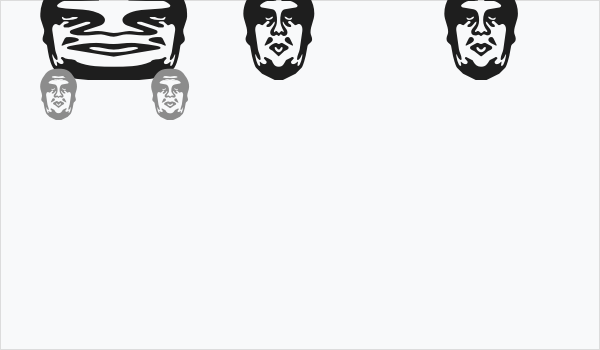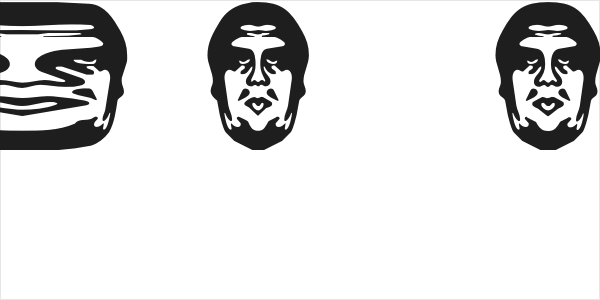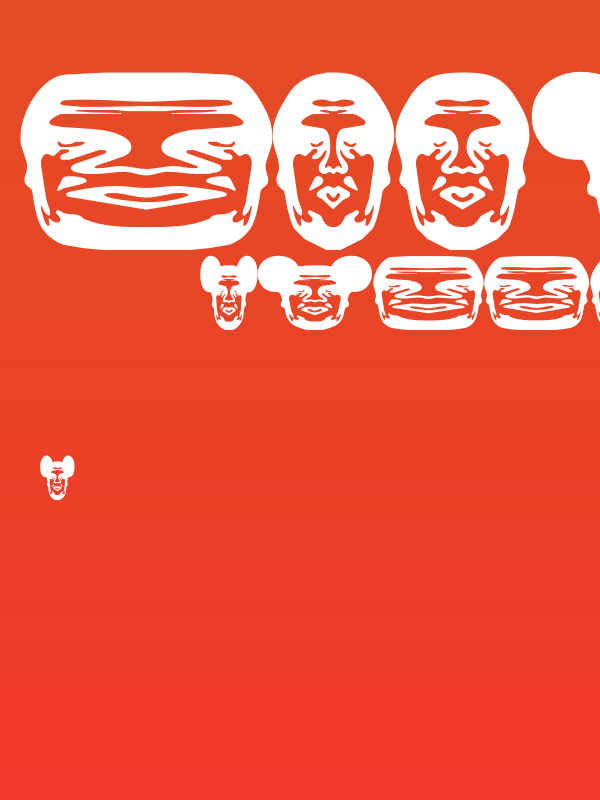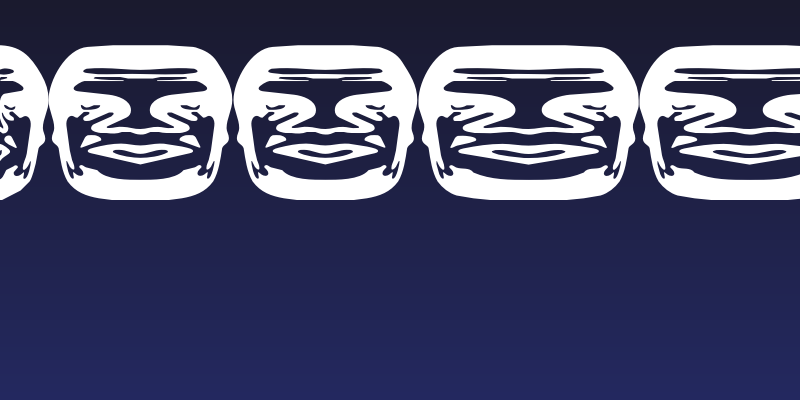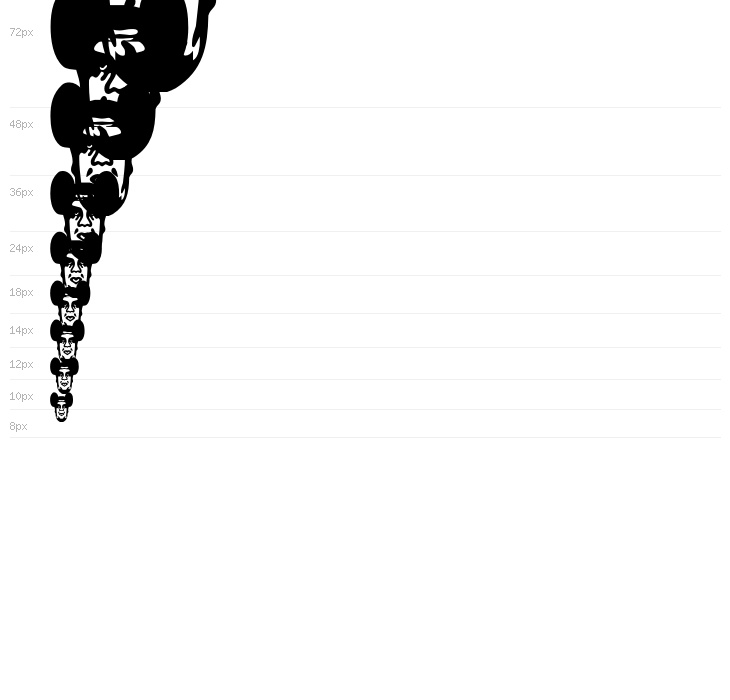
ObeyBalloon2Caps Font
ObeyBalloon2Caps Description
This is not a traditional font but rather a series of graphic representations featuring a stylized face. Each character is replaced by a unique variation of this face, creating a bold and striking visual impact. The design is highly decorative and unconventional, making it unsuitable for typical text applications. Instead, it serves as a graphic element that can be used creatively in design projects. The faces are bold and have a strong presence, which can be used to convey a sense of rebellion or artistic flair.
| Use Case | Logos, Artistic designs, Posters |
| Proposed Projects | Ideal for artistic projects, posters, or any design work that requires a bold, unconventional visual element. |